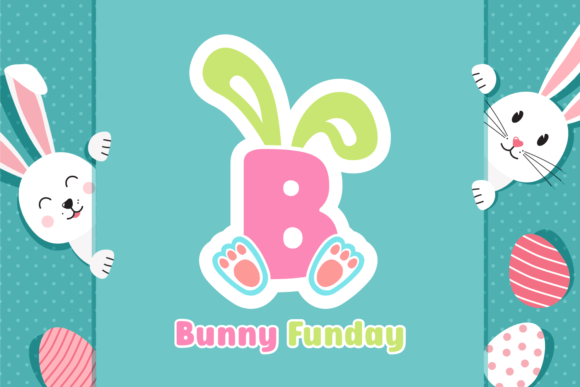
Bunny Funday Font: Adding a Touch of Whimsy to Your Designs
The Bunny Funday font is a playful and charming typeface that is sure to bring a smile to your face. This delightful font features adorable bunny ears incorporated into each character, capturing the joyful spirit of bunnies and making it perfect for projects that require a fun and lighthearted aesthetic.
The Defining Feature of Bunny Funday Font
The defining feature of the Bunny Funday font is the addition of bunny ears to each character. Whether it’s the curves of a lowercase “b” or the loops of an uppercase “O,” every letter is adorned with cute bunny ears, adding a delightful and playful touch to the font’s design. This unique feature sets Bunny Funday apart from other fonts and makes it a standout choice for designers looking to add a touch of whimsy to their work.
Perfect for Fun and Lighthearted Projects
The Bunny Funday font is perfect for projects that require a fun and lighthearted aesthetic. Whether you’re designing materials for children, creating Easter-themed designs, or promoting an event, this font is sure to bring a touch of joy and playfulness to your work. The font’s whimsical design makes it an excellent choice for:
- Children’s materials: The Bunny Funday font is perfect for children’s books, educational materials, and activity sheets.
- Easter-themed designs: The font’s bunny ears make it a natural fit for Easter-themed designs, such as Easter egg designs, bunny-themed party invitations, and holiday promotions.
- Branding: The Bunny Funday font can add a playful touch to your brand’s identity, making it perfect for companies that want to convey a fun and approachable image.
- Event promotion: The font’s whimsical design makes it an excellent choice for promoting events, such as birthday parties, festivals, and fairs.
Versatility of Bunny Funday Font
The Bunny Funday font is a versatile typeface that can be used in a variety of design projects. Its playful design makes it an excellent choice for:
- Digital designs: The font is perfect for digital designs, such as social media graphics, blog posts, and email newsletters.
- Print designs: The font is also suitable for print designs, such as brochures, flyers, and posters.
- Web designs: The font can be used in web designs, such as website headers, footers, and buttons.
Why Choose Bunny Funday Font?
There are many reasons why you should choose the Bunny Funday font for your design projects. Here are a few:
- Unique design: The font’s unique design sets it apart from other fonts and makes it a standout choice for designers.
- Playful aesthetic: The font’s playful aesthetic makes it perfect for projects that require a fun and lighthearted touch.
- Versatility: The font is versatile and can be used in a variety of design projects.
- Easy to read: Despite its playful design, the font is easy to read and can be used for both headings and body text.
The Bunny Funday font is a playful and charming typeface that is sure to bring a touch of whimsy to your design projects. Its unique design, playful aesthetic, and versatility make it an excellent choice for designers looking to add a fun and lighthearted touch to their work. Whether you’re designing materials for children, creating Easter-themed designs, or promoting an event, the Bunny Funday font is a great choice.
- What is the Bunny Funday font? The Bunny Funday font is a playful and charming typeface featuring adorable bunny ears incorporated into each character.
- What is the Bunny Funday font used for? The font is perfect for projects that require a fun and lighthearted aesthetic, such as children’s materials, Easter-themed designs, branding, and event promotion.
- Is the Bunny Funday font easy to read? Yes, despite its playful design, the font is easy to read and can be used for both headings and body text.